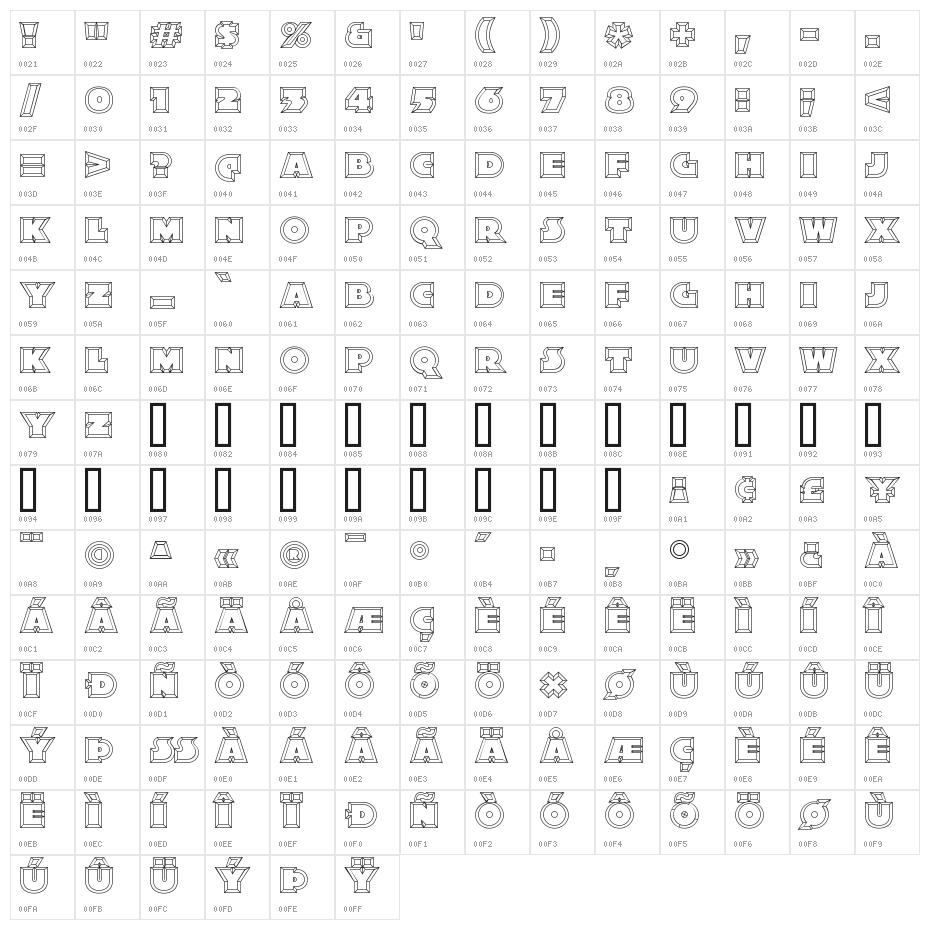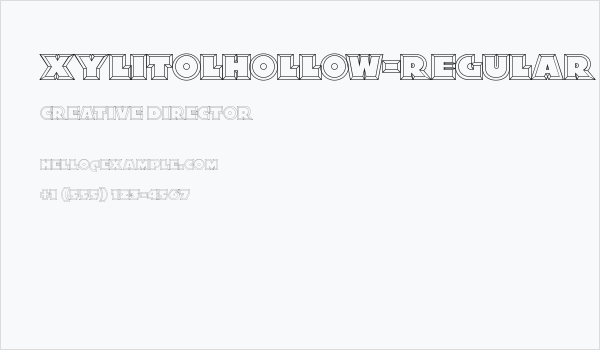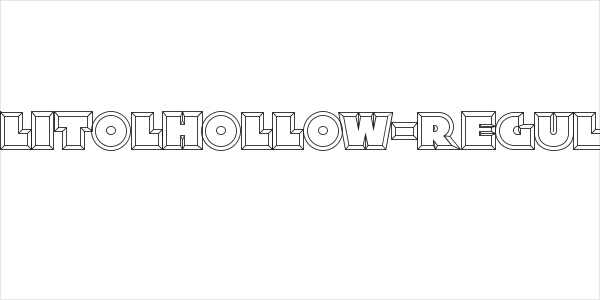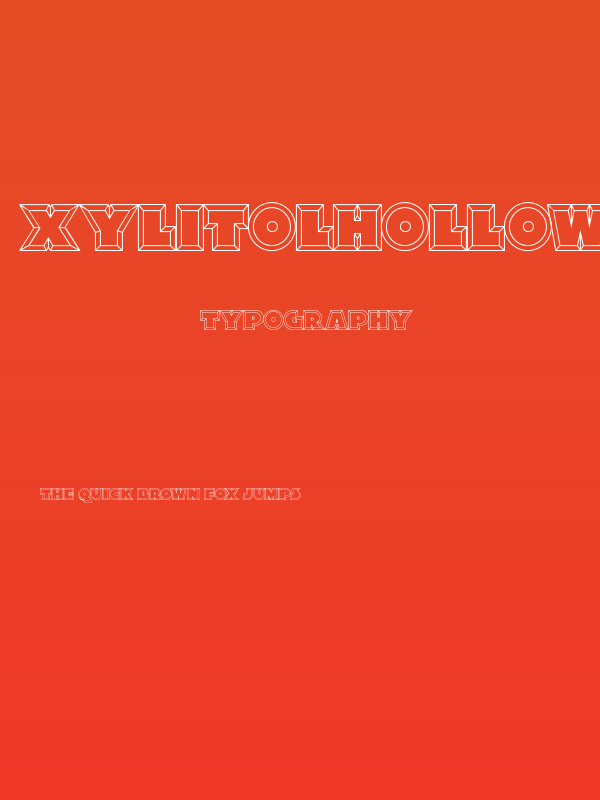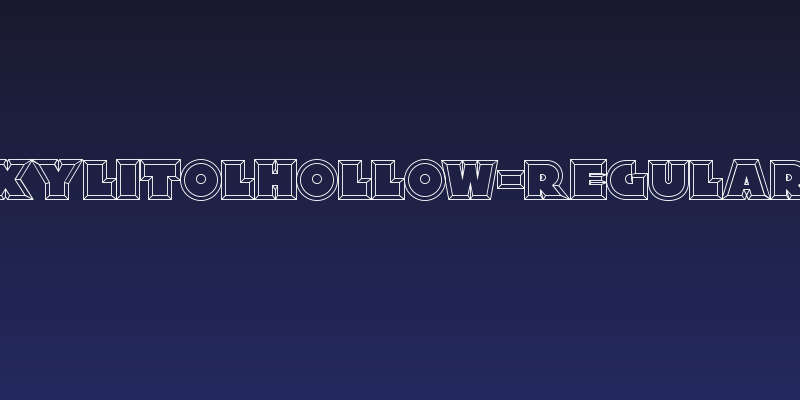
XylitolHollow-Regular Font
XylitolHollow-Regular Description
This font features a bold, three-dimensional design with a hollow interior, creating a striking visual effect. The characters are outlined with a consistent thickness, giving them a structured and geometric appearance. The style is reminiscent of retro and futuristic themes, making it ideal for eye-catching designs. The uppercase and lowercase letters maintain a uniform height, while the numbers and special characters follow the same design principles, ensuring cohesion across all elements. The font's unique style makes it stand out, perfect for projects that require a bold statement.
| Overall Style | Retro-Futuristic |
| Proposed Projects | Ideal for posters, logos, video game titles, and any project needing a bold, eye-catching typeface. |